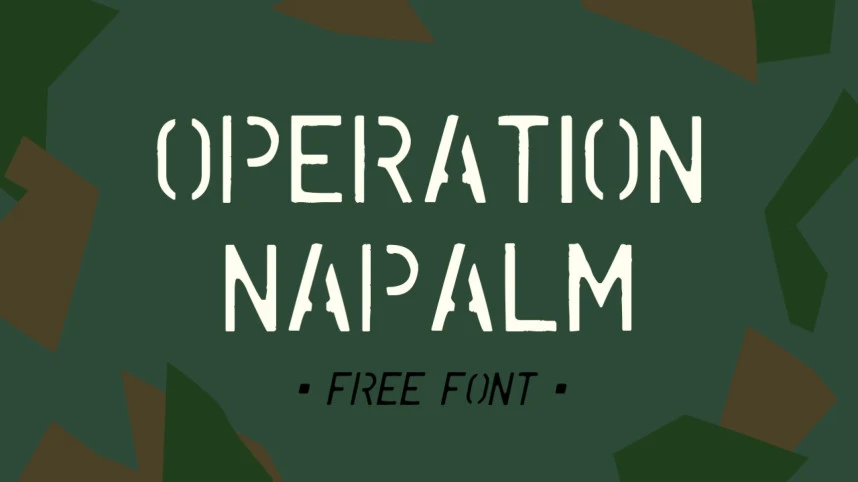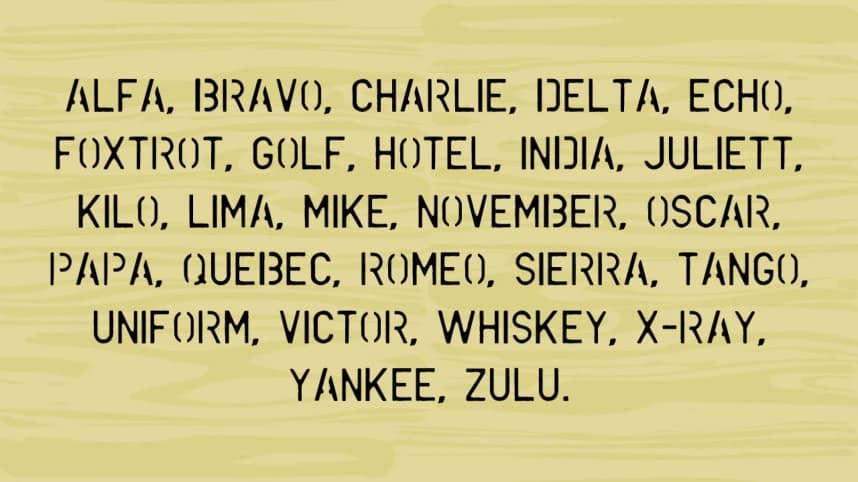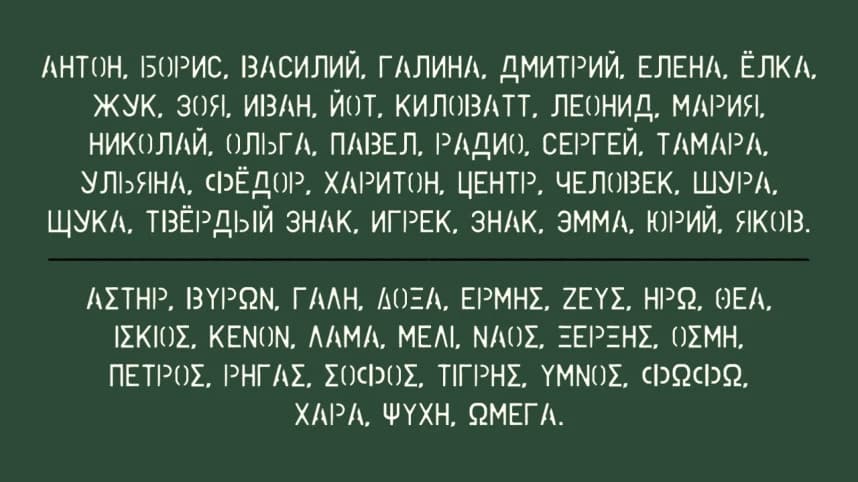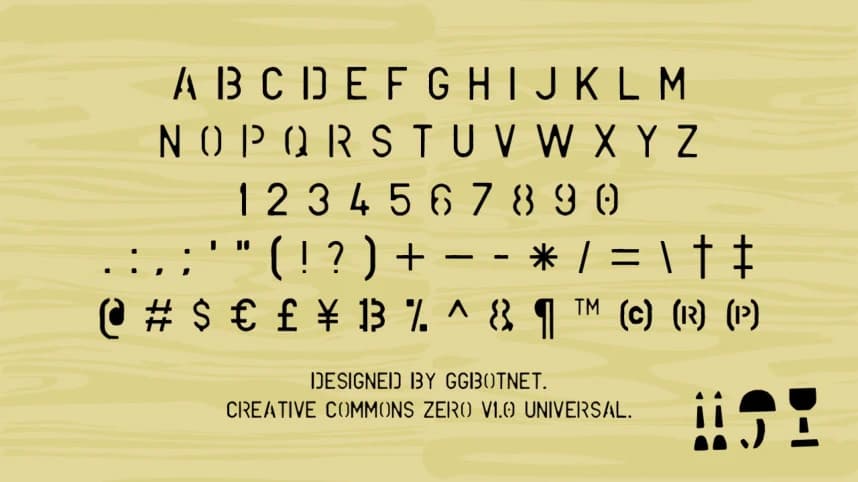
Operation Napalm Font
Operation Napalm Font is an aggressive military-inspired display typeface with a distressed industrial aesthetic. Combining stencil-style construction with rough textures and explosive visual energy, the font delivers a gritty combat-ready atmosphere that feels intense